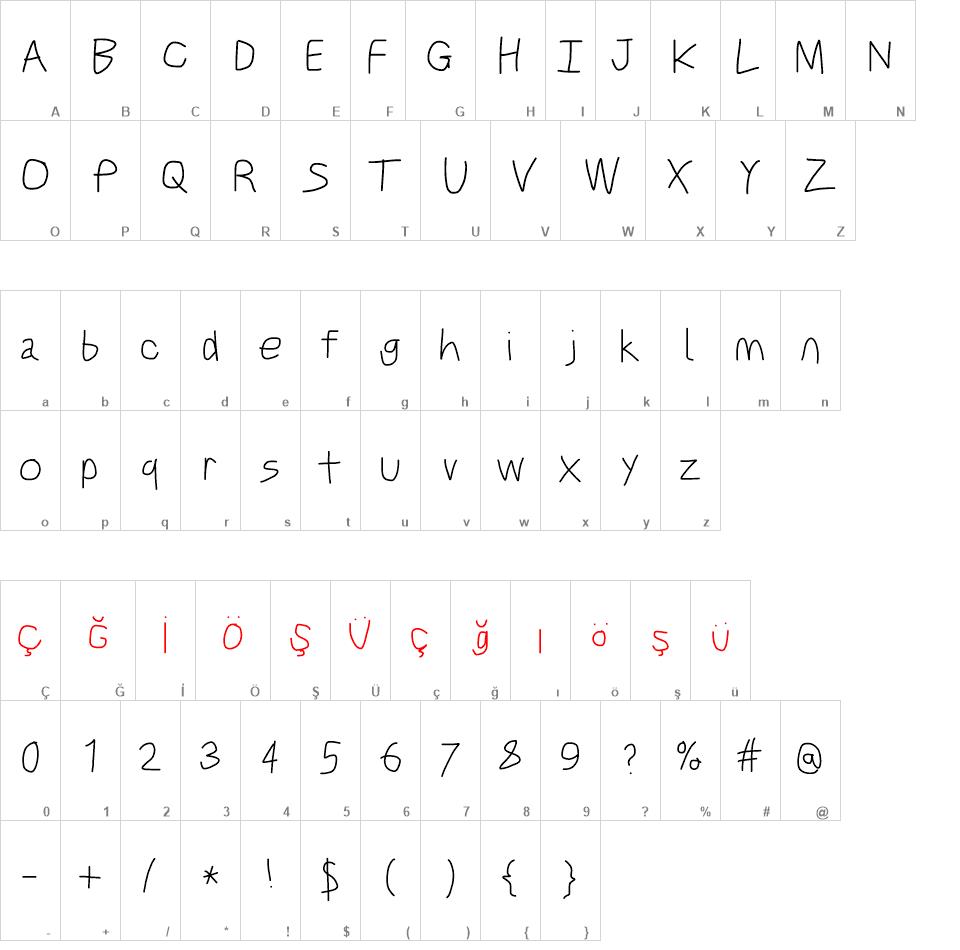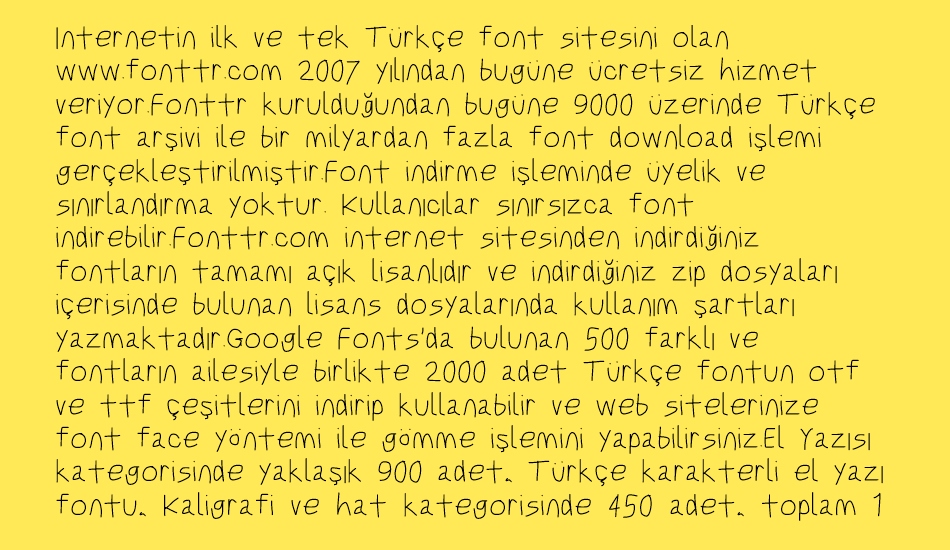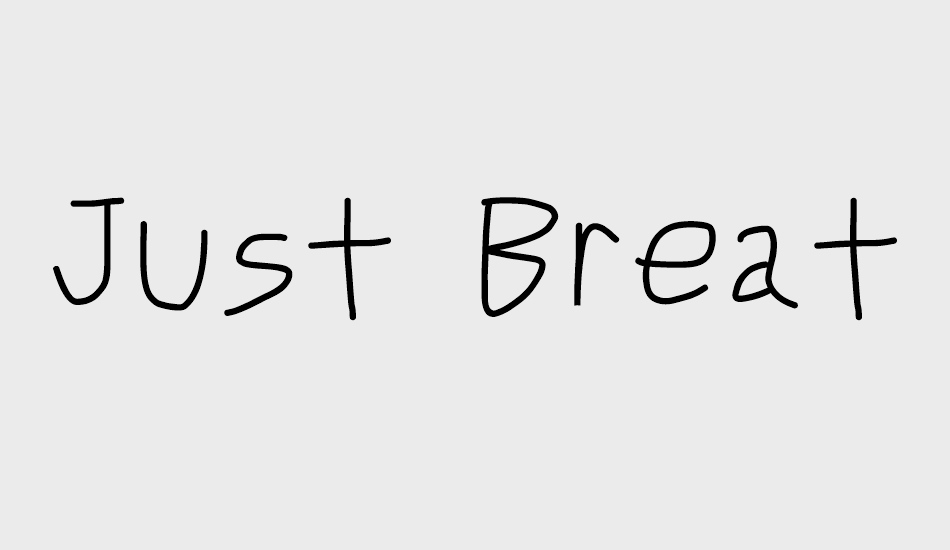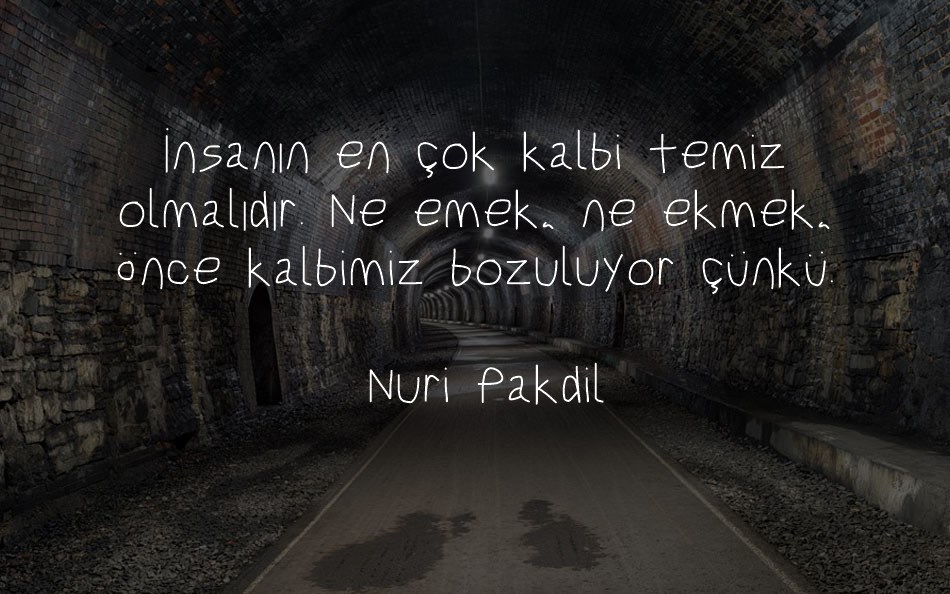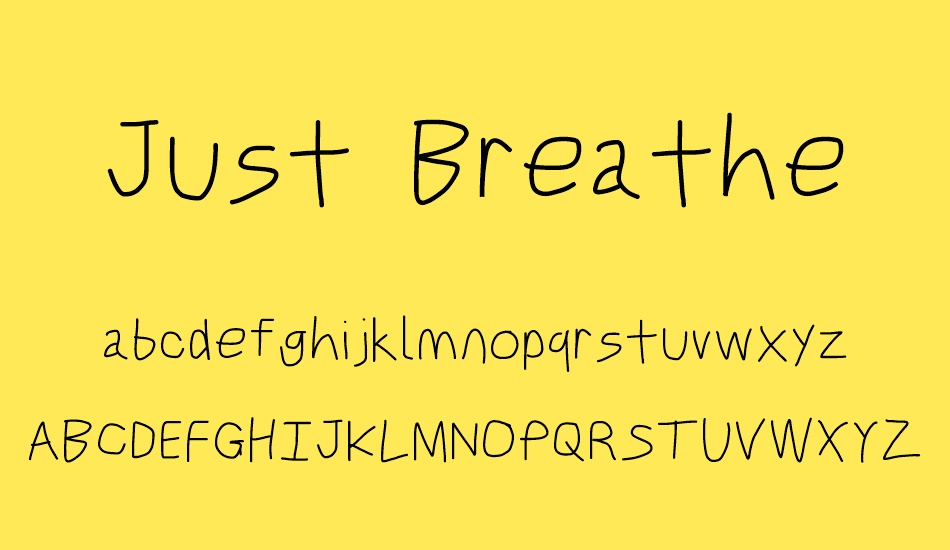
Just Breathe font
Just Breathe
This Open Source handwriting style font has a large character set, so you can use it for several Latin (and some Cyrillic) alphabet using languages.